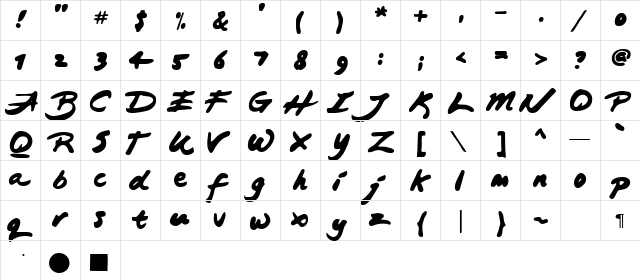
Japanese Brush Regular
Design Context for Japanese Brush Typeface
Japanese Brush brings a calligraphic fluidity to the page — its connecting strokes and expressive curves give it an unmistakably human quality.
Font Pairing: Combine Japanese Brush with a simple geometric sans for maximum contrast — the tension between flowing curves and clean structure is a classic typographic pairing.
Pro Tip: Pair Japanese Brush with a clean sans-serif for supporting text. The contrast between fluid script and geometric structure creates an elegant typographic hierarchy.